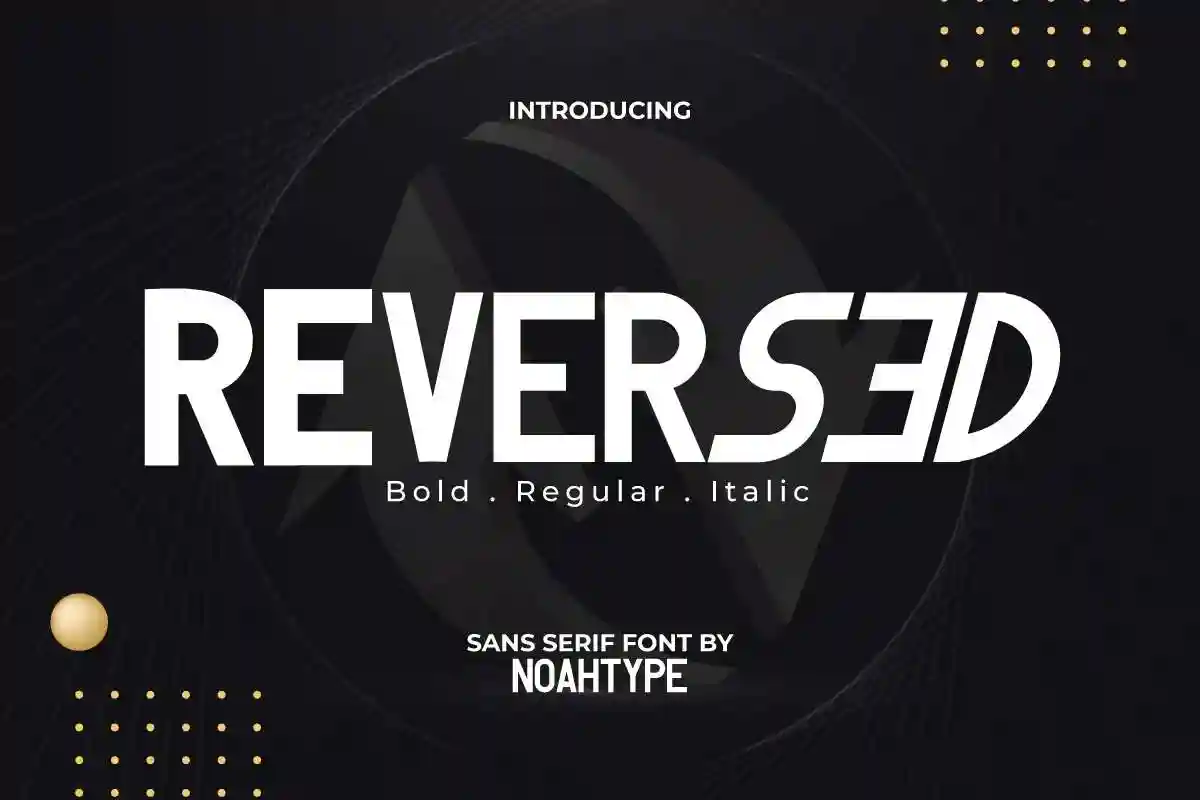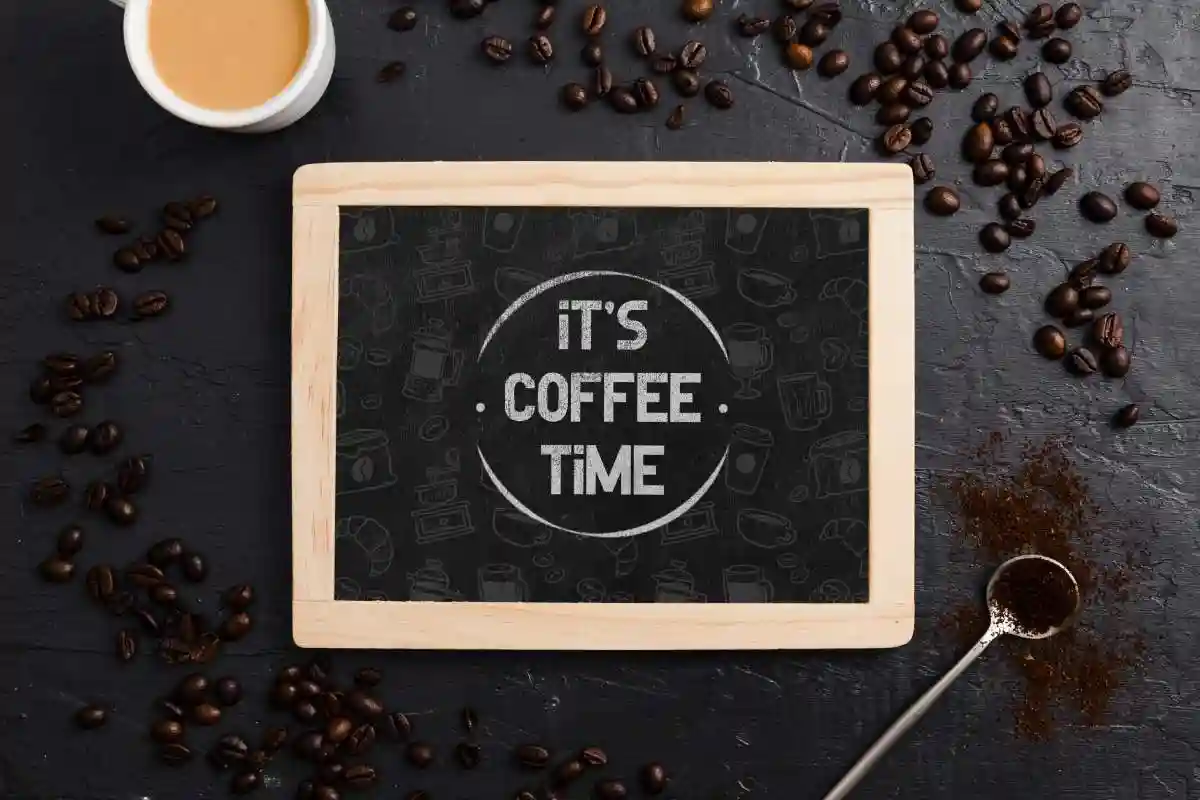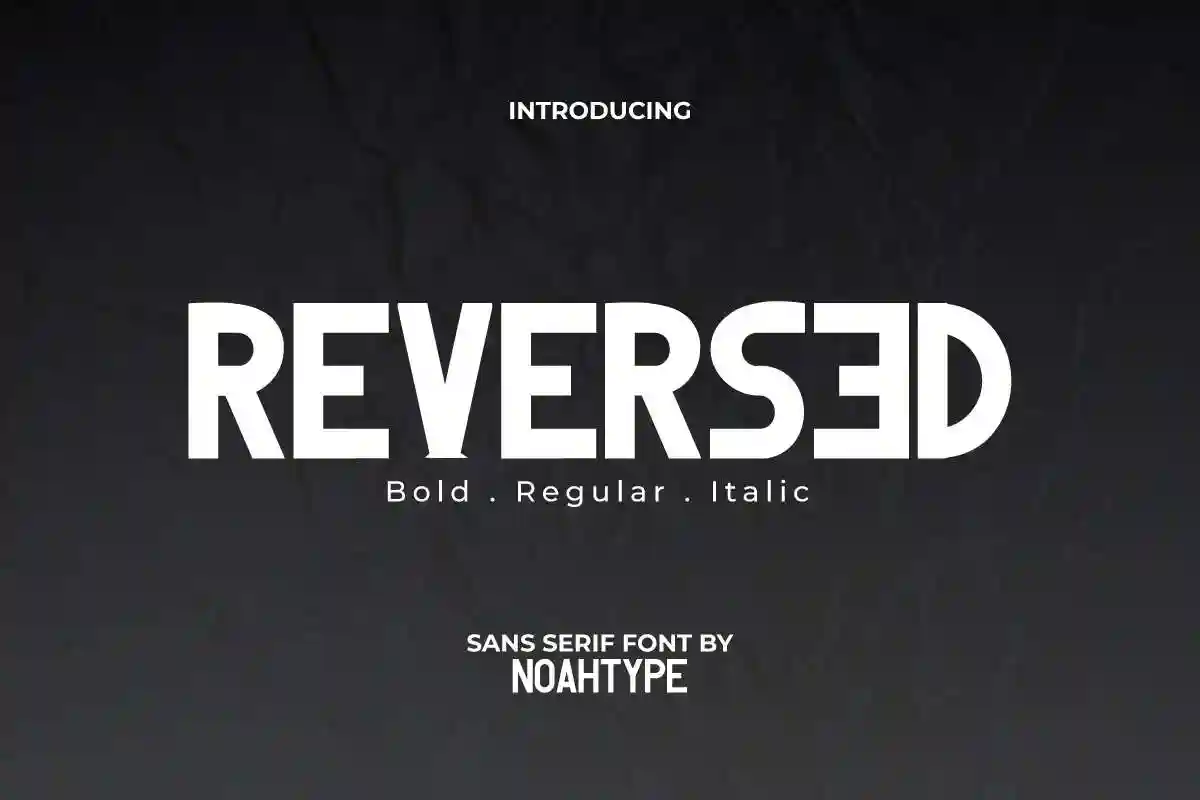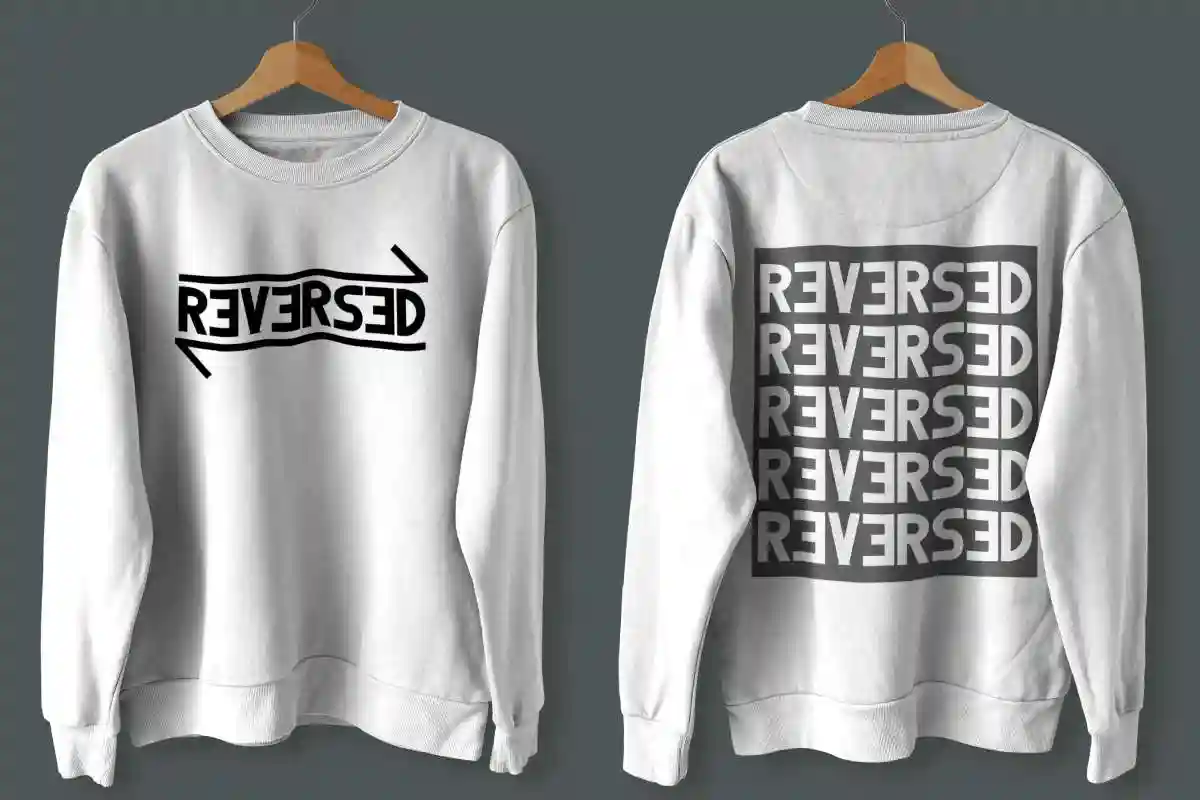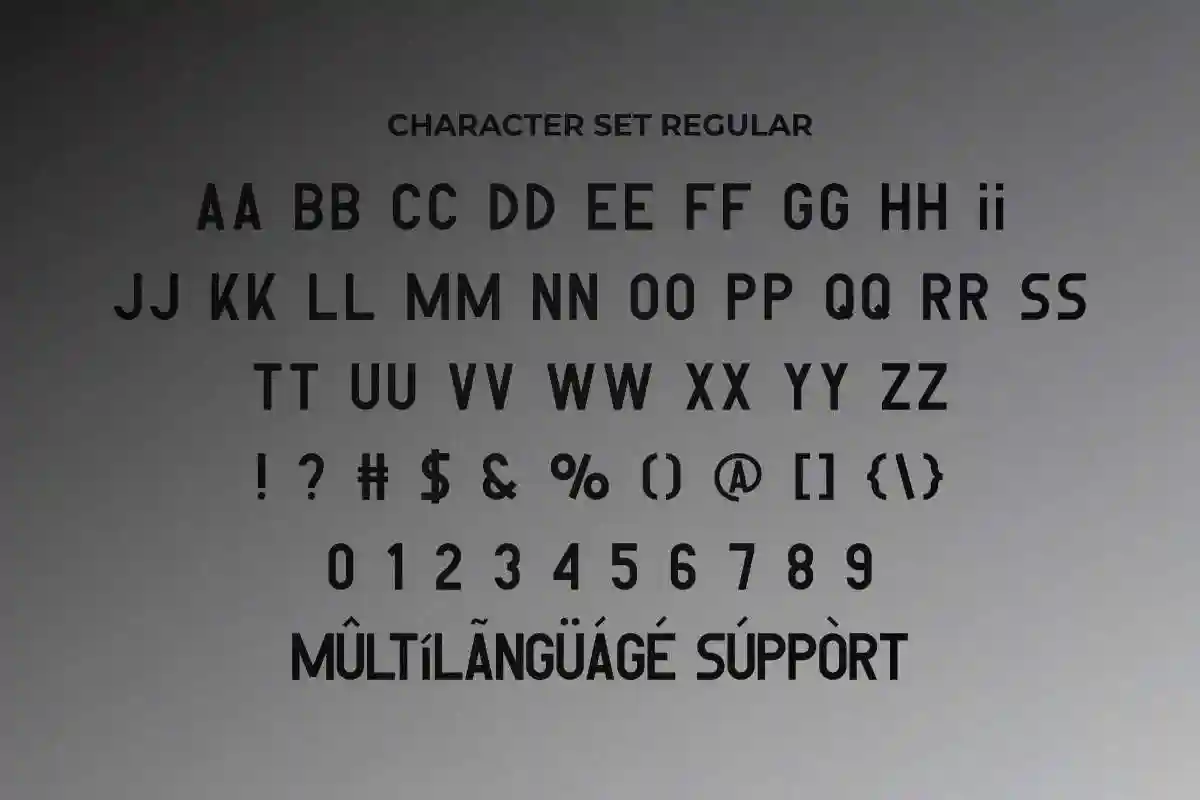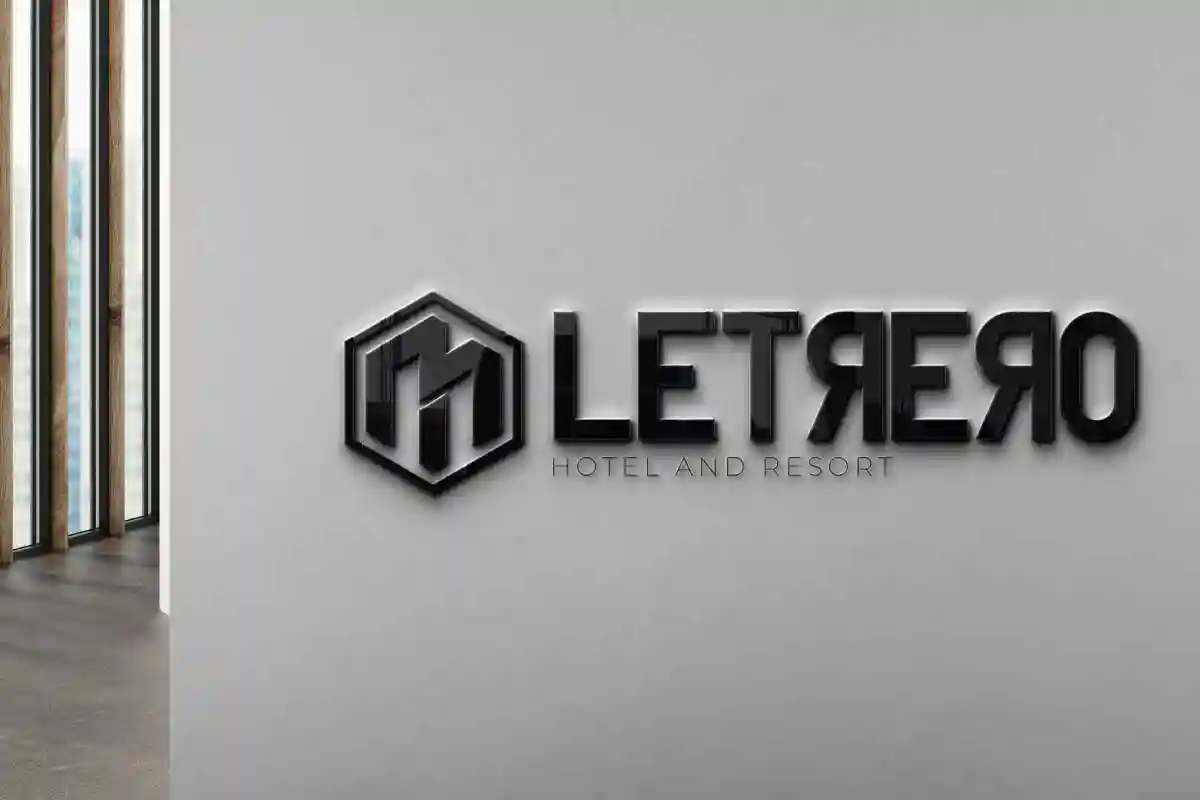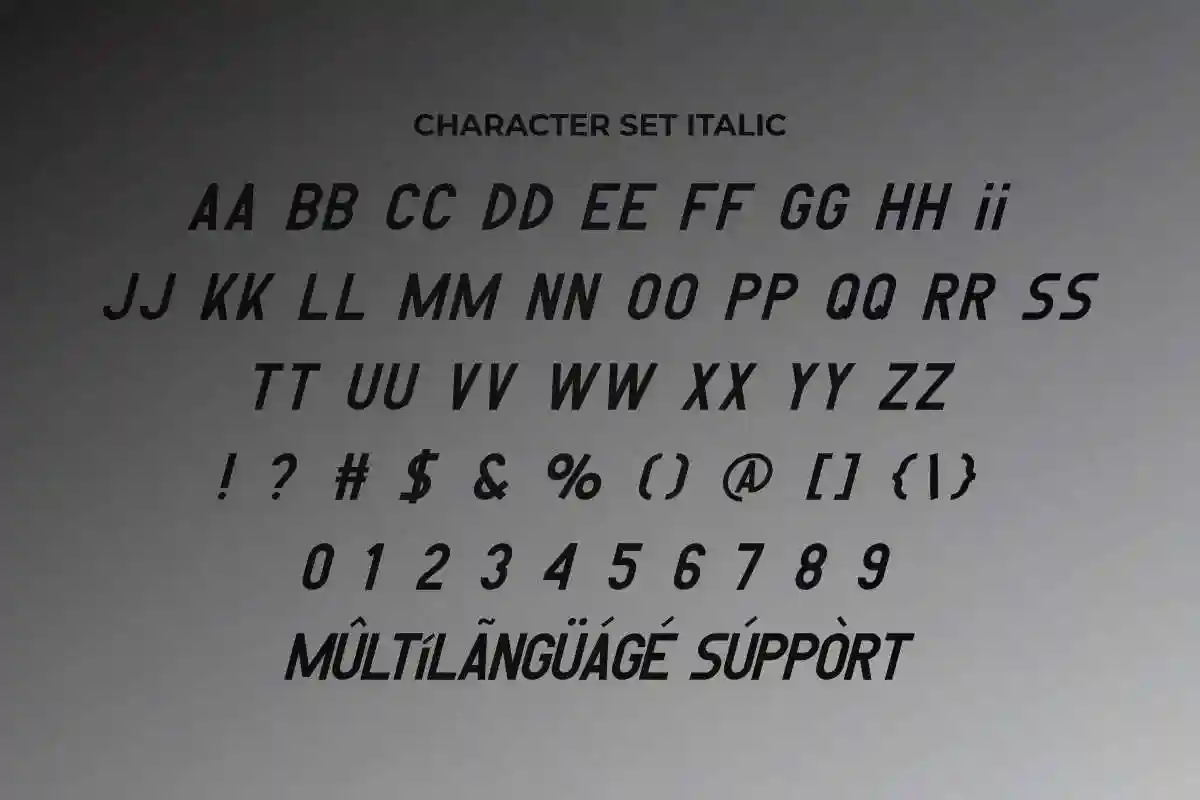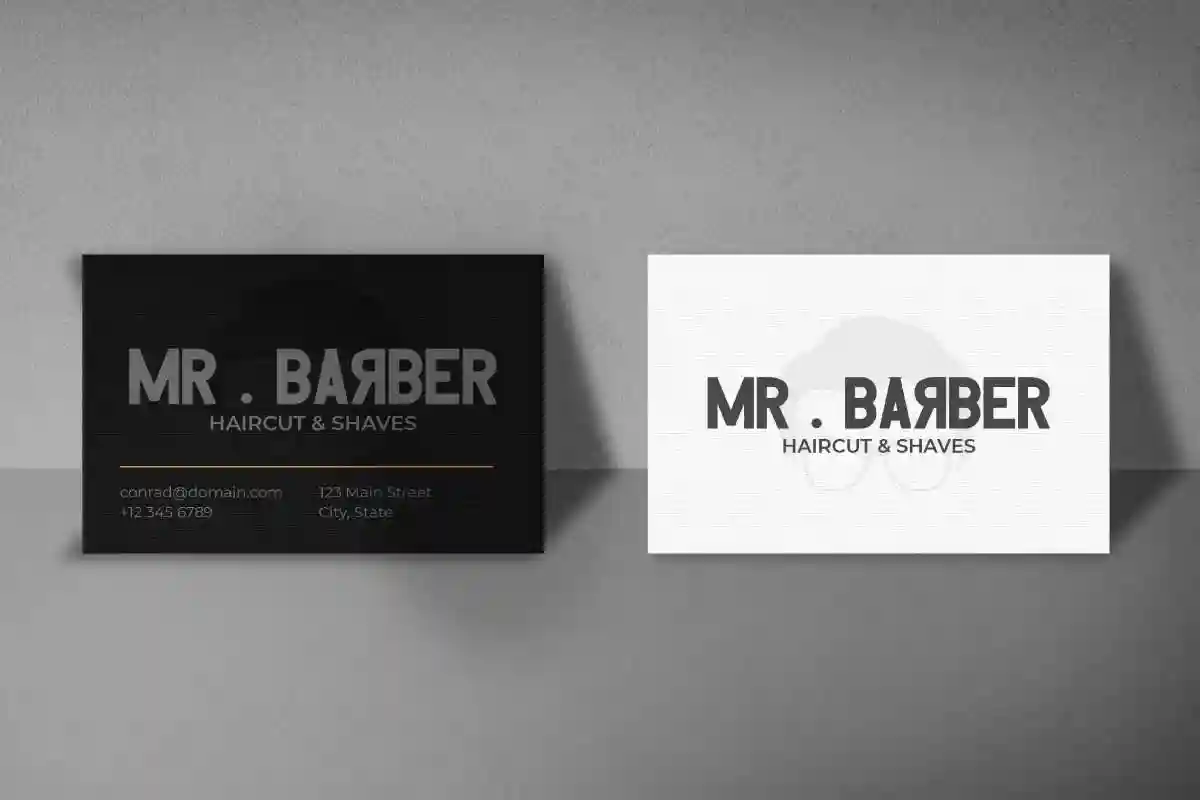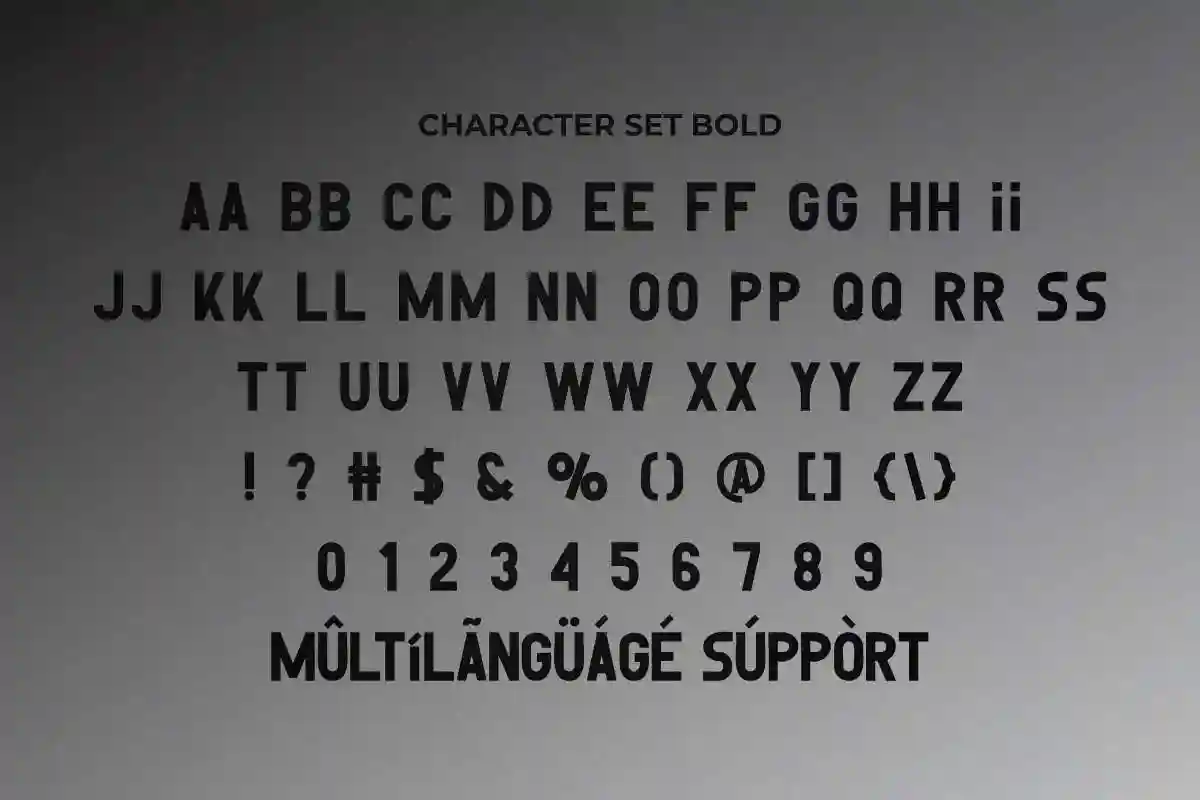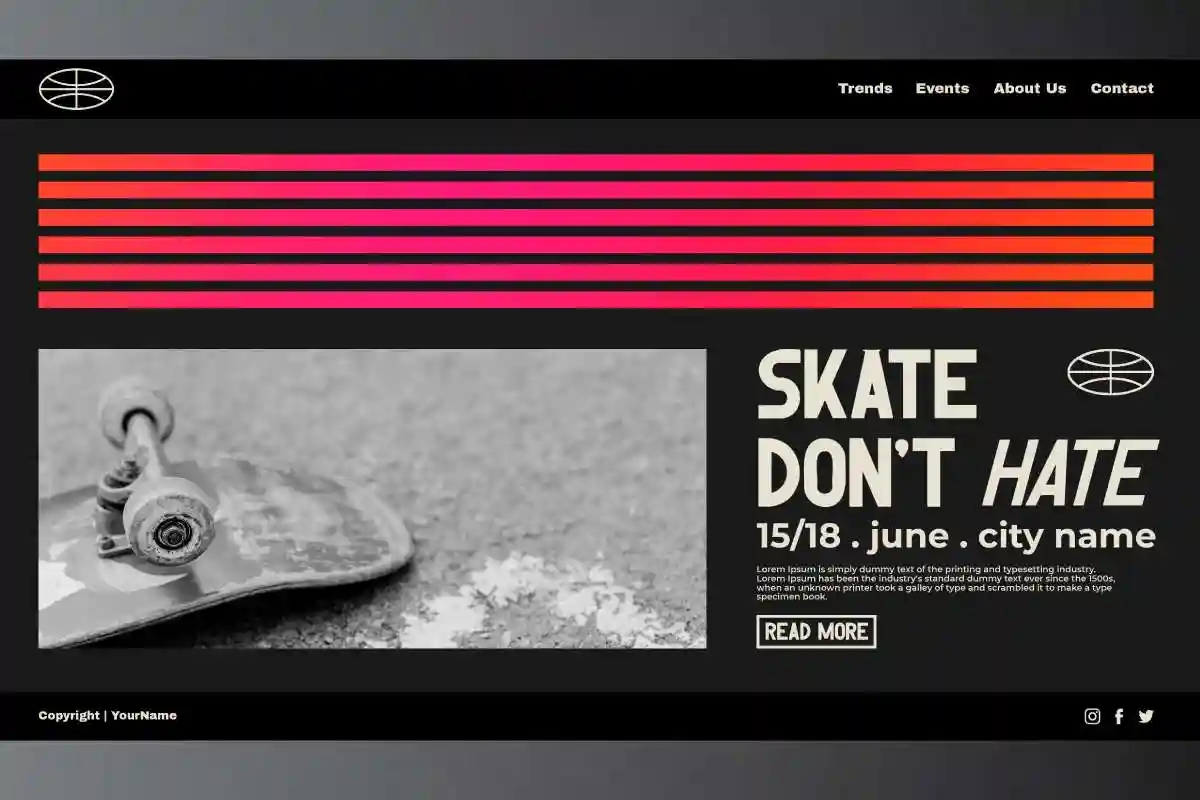
Reversed Font is a modern and stylish sans serif display font with energic style on its letters. This font also bring futuristic vibes while easily to read. It will be amazing for many business and industries including startup companies, corporate brands, technology related, gaming industries, finance and banking, and many others.
Introducing Reversed Sans Serif Font, a powerful modern typeface designed to make your message stand out. Crafted with clean lines, geometric balance, and a bold personality, this font is the perfect choice for designers looking to add a unique edge to their branding, editorial, or display projects.
Reversed is not your average sans serif. Its signature reversed stroke details and minimalist structure create a striking visual contrast that draws the eye instantly. Whether you’re designing a logo, headline, poster, website, or social media content, Reversed Sans Serif Font adds a contemporary twist that enhances professionalism and creativity.
Reversed Font comes with three styles: regular, italic, and bold. The characters include full set of All Caps Basic Characters, Numerals and Punctuation. This font would be great for many projects. Here’s What’s Included on the package :
Reversed Font supports multilingual languages (including multiple currency symbols). With a simple installation and will be ready to use both on Windows machine or Mac. Tested work well on Adobe software such as Illustrator, Photoshop and several other software. This font is perfect for many project design categories such as : branding design, headings, lettering, logos, products packaging, screen printing, signage, stationery, quotes, webpage and more!